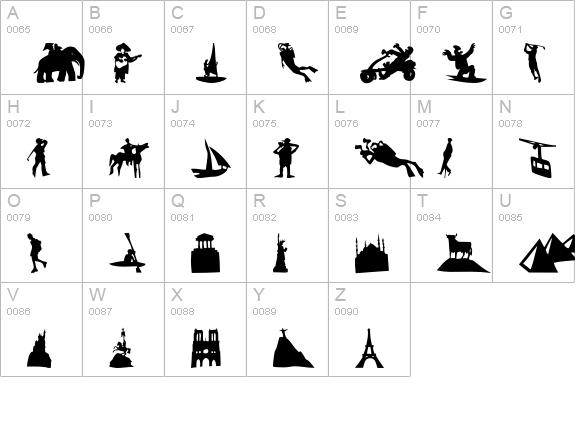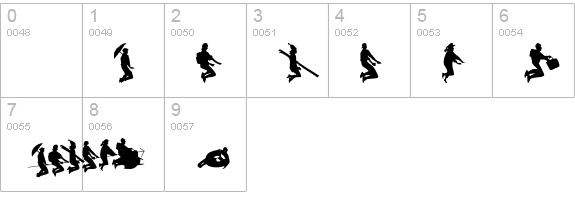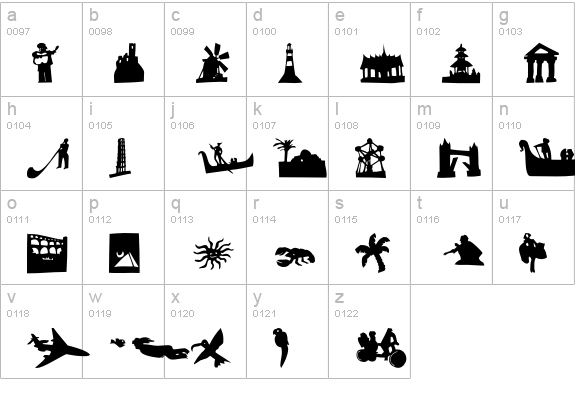
AIToursAndTravel Font Details
AIToursAndTravel font is a stylish and modern typeface perfect for all your travel and tourism-related design projects. With its sleek lines and elegant curves, this font captures the essence of exploration and adventure. Whether you're creating brochures, posters, or website headers, AIToursAndTravel font is the ideal choice to add a touch of sophistication to your designs. What's even better is that AIToursAndTravel font is available for free download at FontsMarket.com. Yes, you read that right – you can get your hands on this stunning font without spending a dime! So why wait? Elevate your travel-themed designs with AIToursAndTravel font today and watch your creations come to life with style and flair.